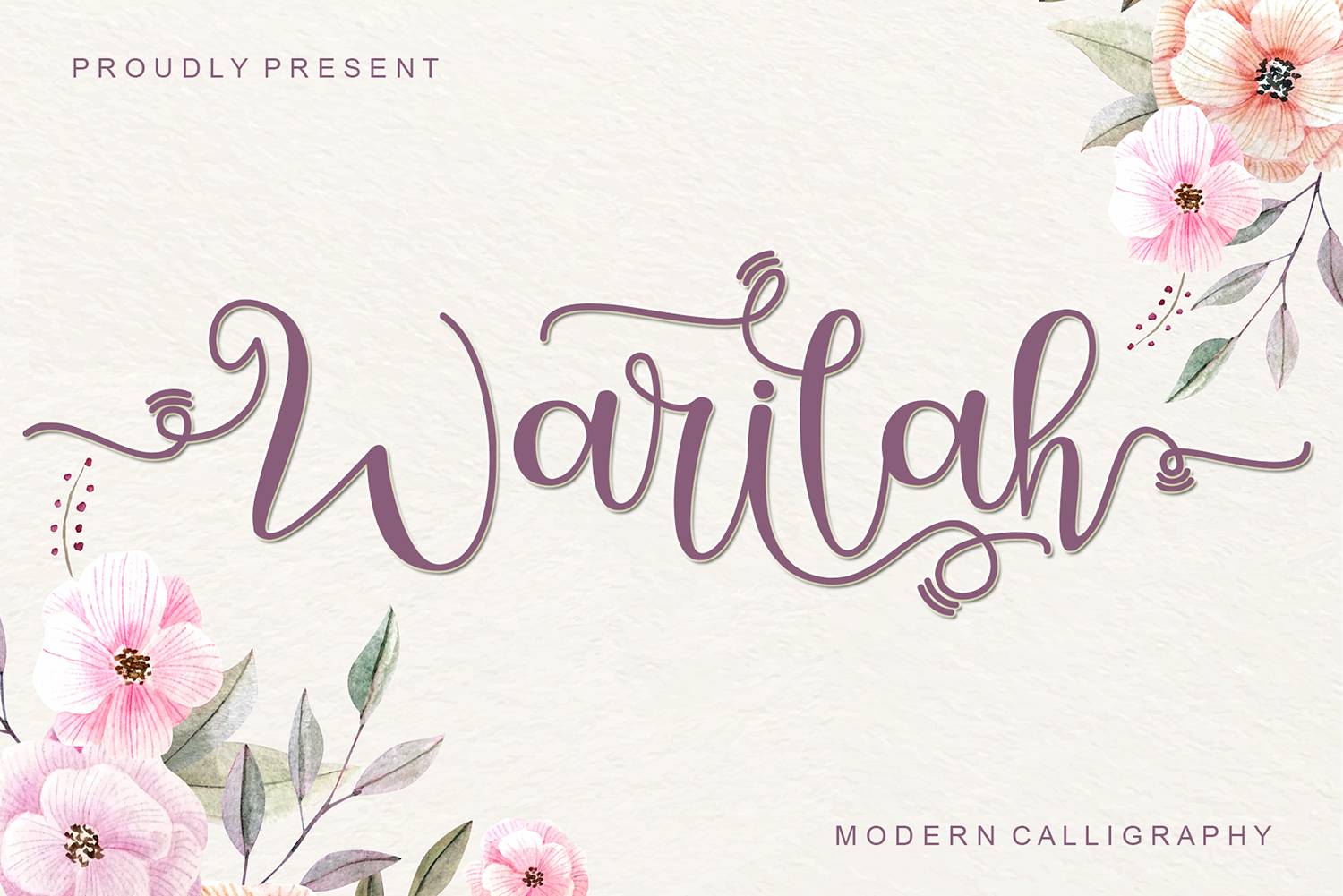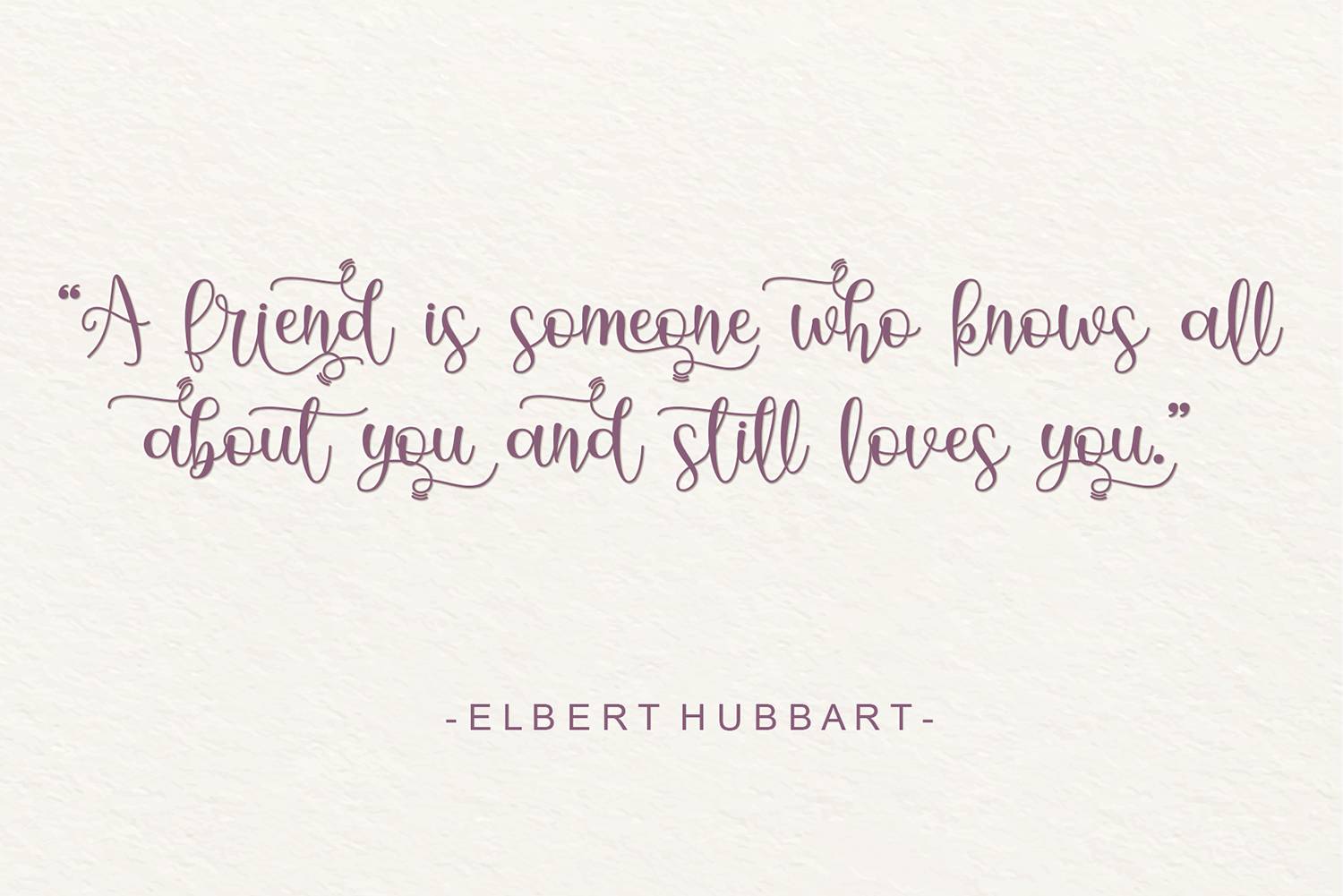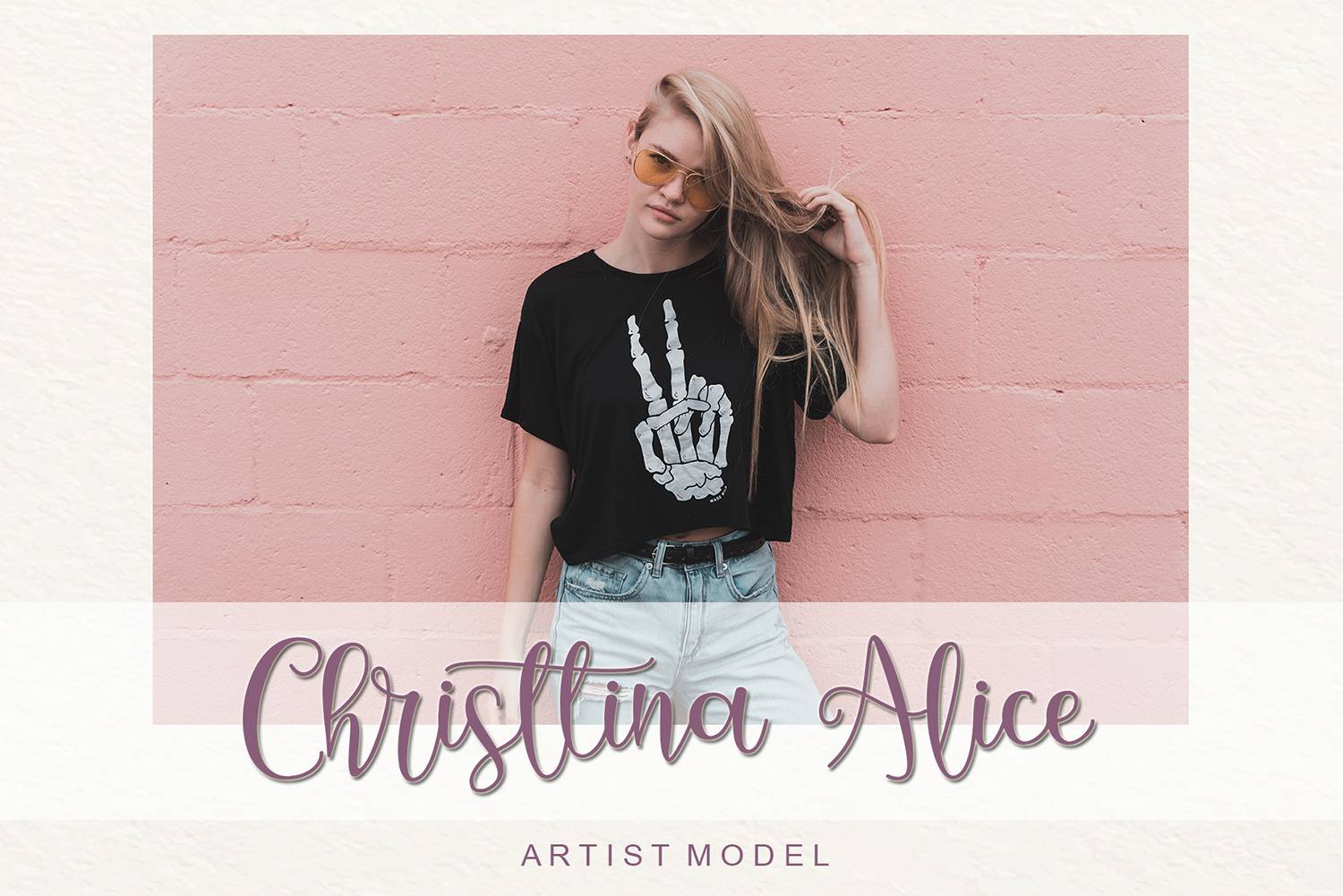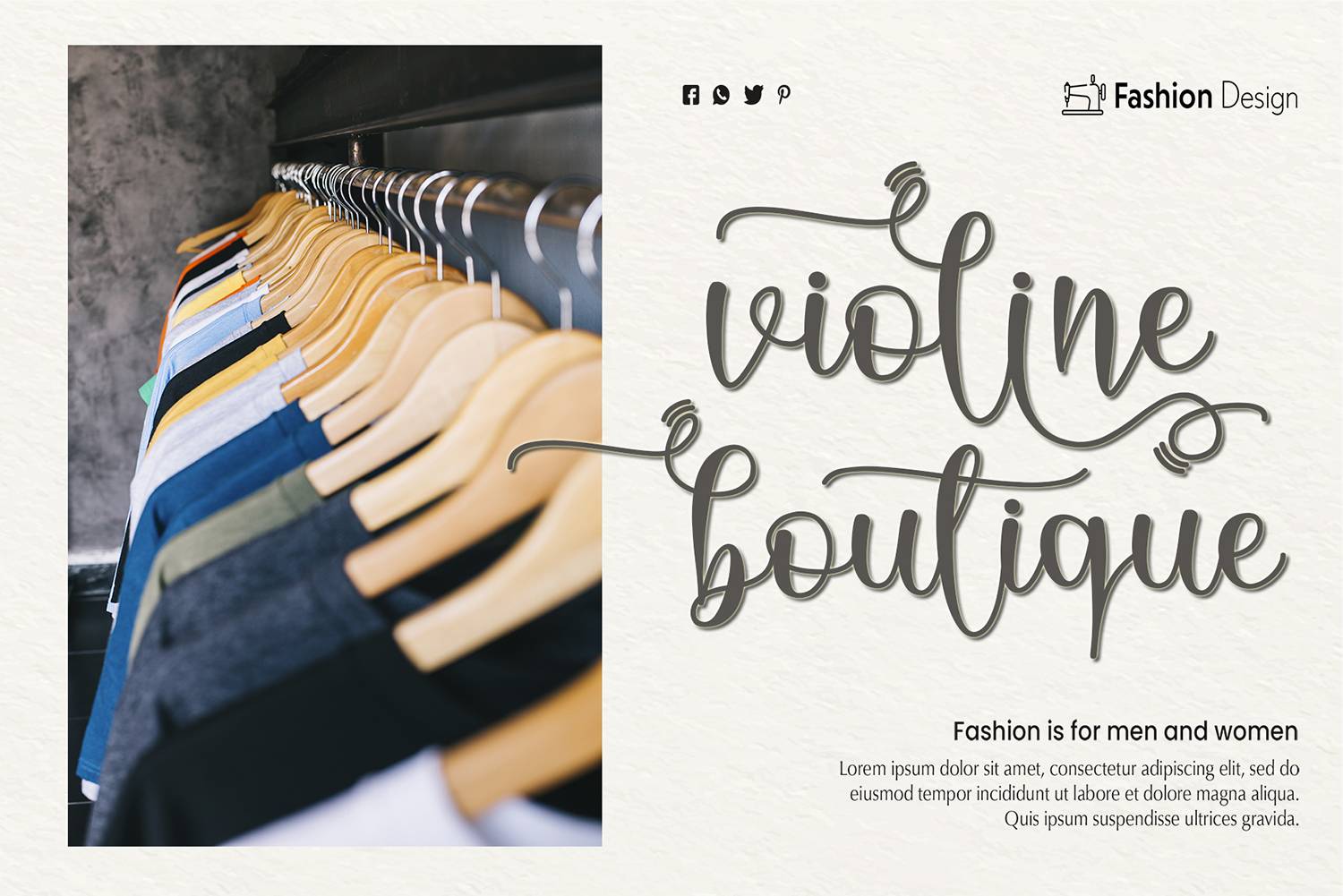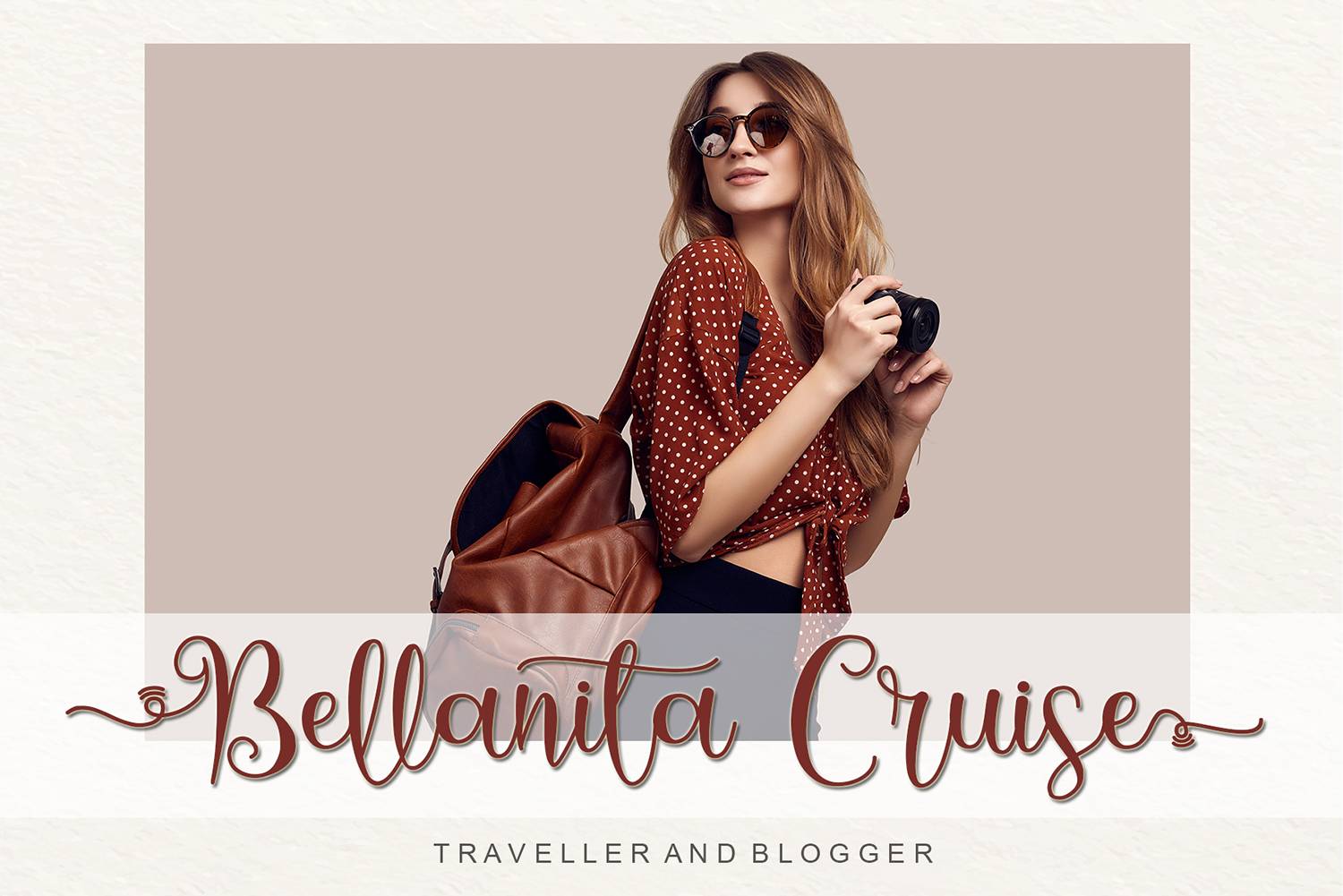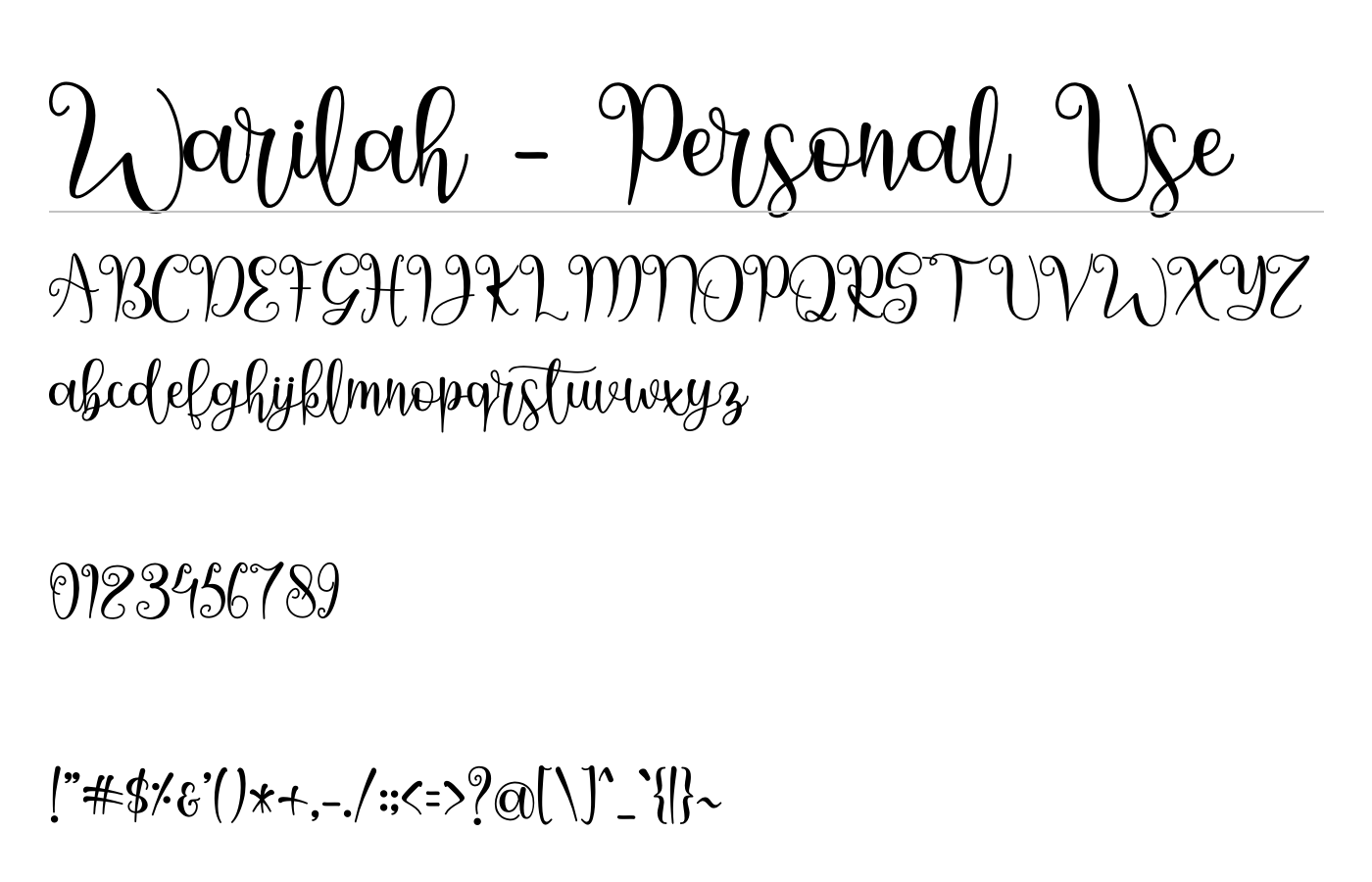
Warilah is a playful and elegant script font characterized by its delicate, flowing strokes and decorative curls on both uppercase and lowercase letters. With its slender, calligraphic forms and charming flair, it conveys a whimsical yet graceful personality, making it perfect for personal invitations, feminine branding, and creative projects that require a touch of sophistication and warmth. This font shines best in headlines, logos, and decorative text where a stylish, handcrafted feel is desired.
Warilah Font
About Warilah Font
| Designer | Ahmad Afandi |